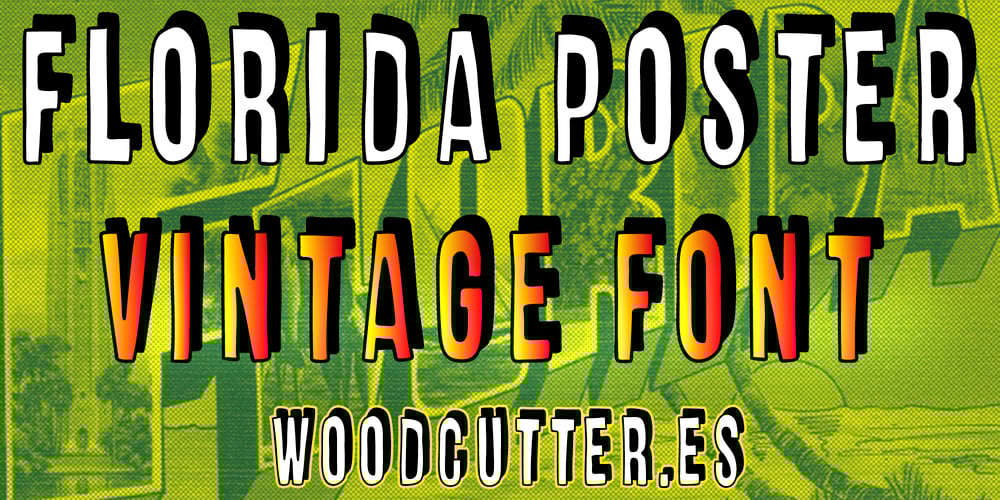
Florida Poster Font Family was designed by Jordi Manero and published by Woodcutter. Florida Poster contains 1 styles and family package options. “Florida Poster” is an uppercase typeface that blends elegance and a handmade touch with a strong vintage style. The white letters, carefully crafted, feature a shadow cast to the right, adding depth and visual emphasis. Its handmade appearance evokes a nostalgic aesthetic, perfect for projects seeking to convey authenticity and retro warmth. Ideal for posters, graphic designs, and branding that require a distinctive and refined character. “Florida Poster” captures the spirit of classic design with modern and versatile execution, making it an excellent choice to stand out in any visual composition.